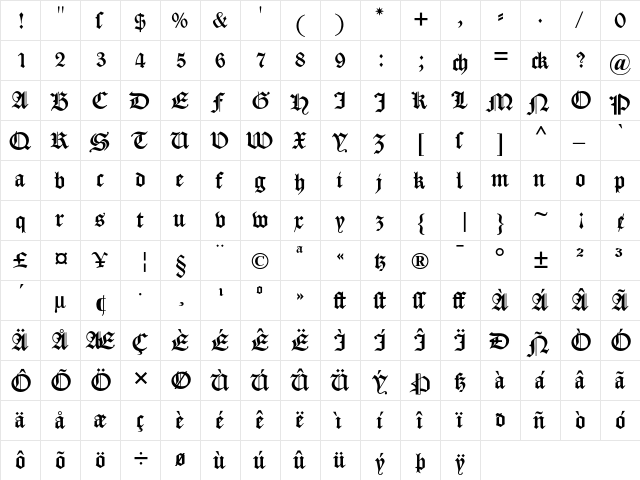
DS CaslonGotisch Regular
| Designer | William Caslon (1692-1766) |
Design Context for DS CaslonGotisch Typeface
DS CaslonGotisch is a composed and adaptable typeface that performs quietly and consistently across a wide range of design contexts.